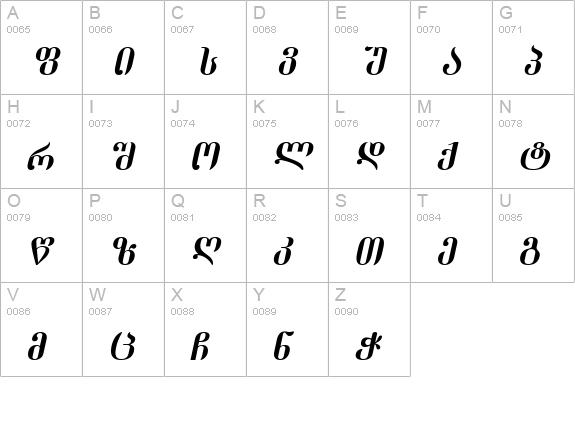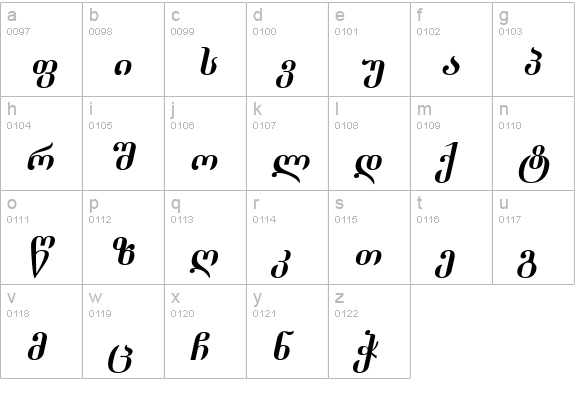
Dumbadze-ITV Italic Font Details
Dumbadze-ITV Italic is a distinctive, italic variant in the Dumbadze typeface family \xE2\x80\x94 well suited to design and typography projects.
Dumbadze-ITV Italic font is a sleek and modern typeface that exudes elegance and sophistication. Its italicized design adds a touch of flair to any project, making it perfect for both professional and creative endeavors. The stylish curves and clean lines of this font make it a versatile choice for a wide range of design applications. Best of all, Dumbadze-ITV Italic font is available for free download at FontsMarket.com. This means you can easily access and use this stunning font without any cost, making it a valuable addition to your font library. Whether you're working on a branding project, a website design, or any other creative project, Dumbadze-ITV Italic font is sure to elevate your work with its sophisticated and stylish appearance. Download it today and see the difference it can make in your designs!